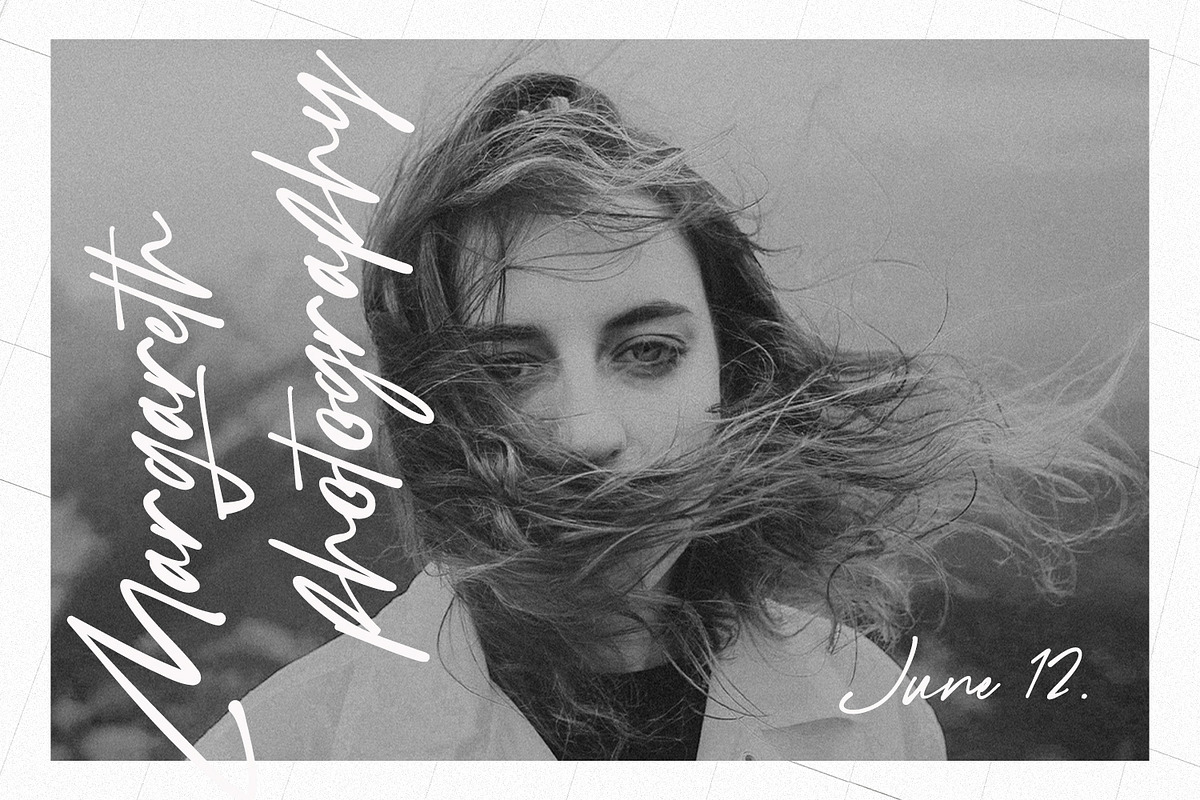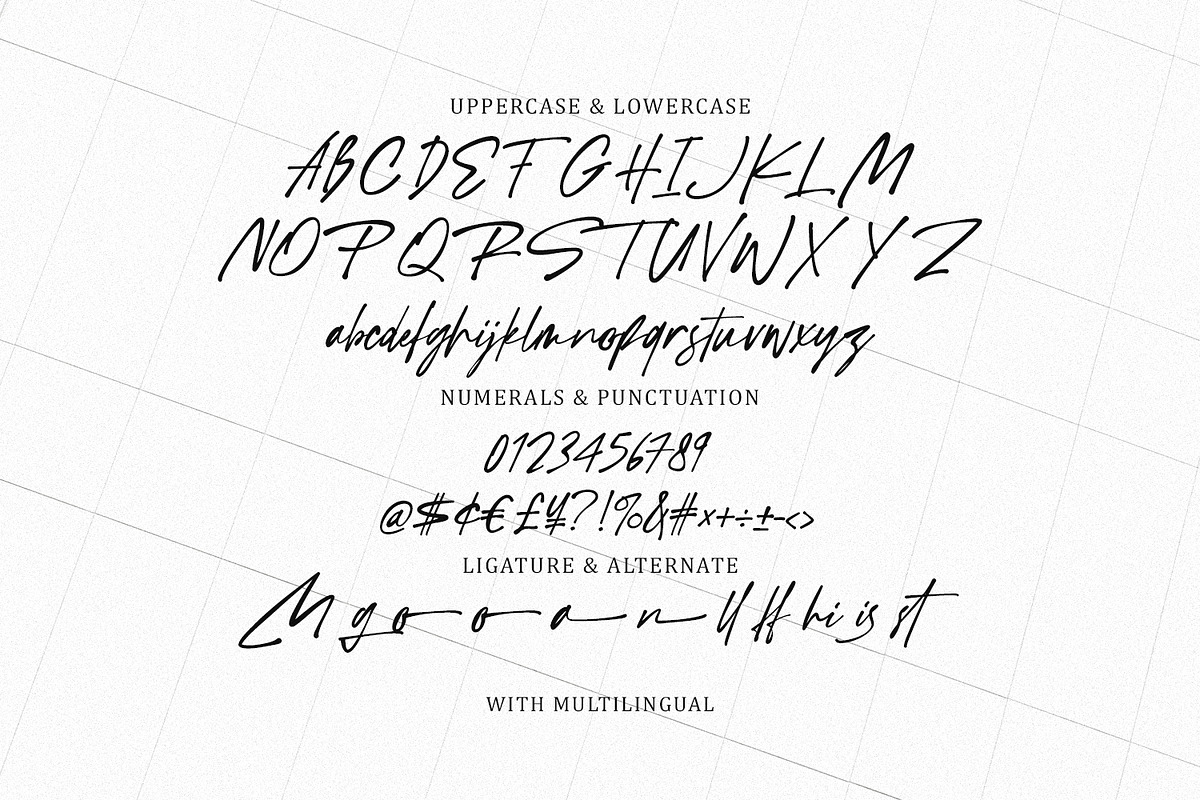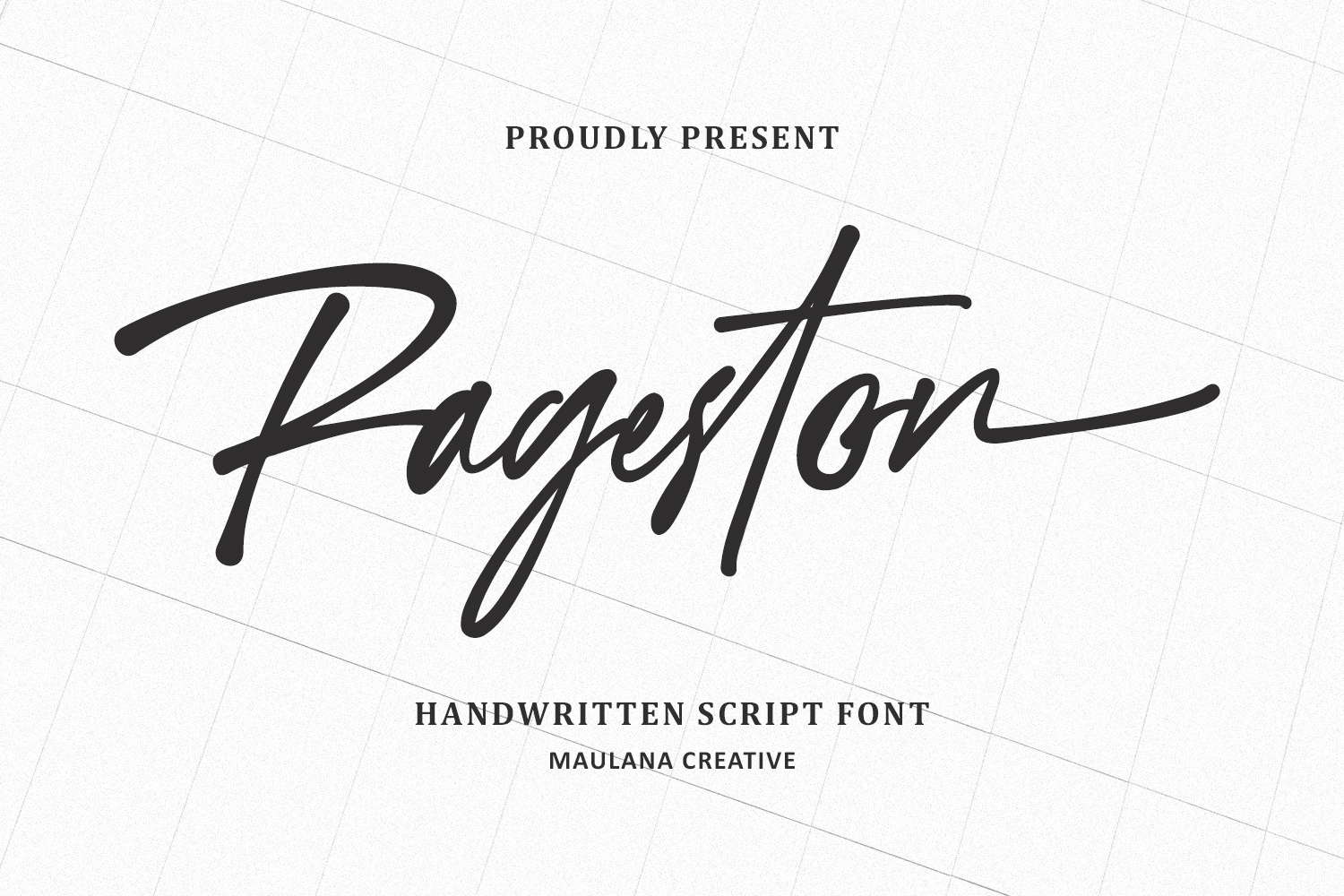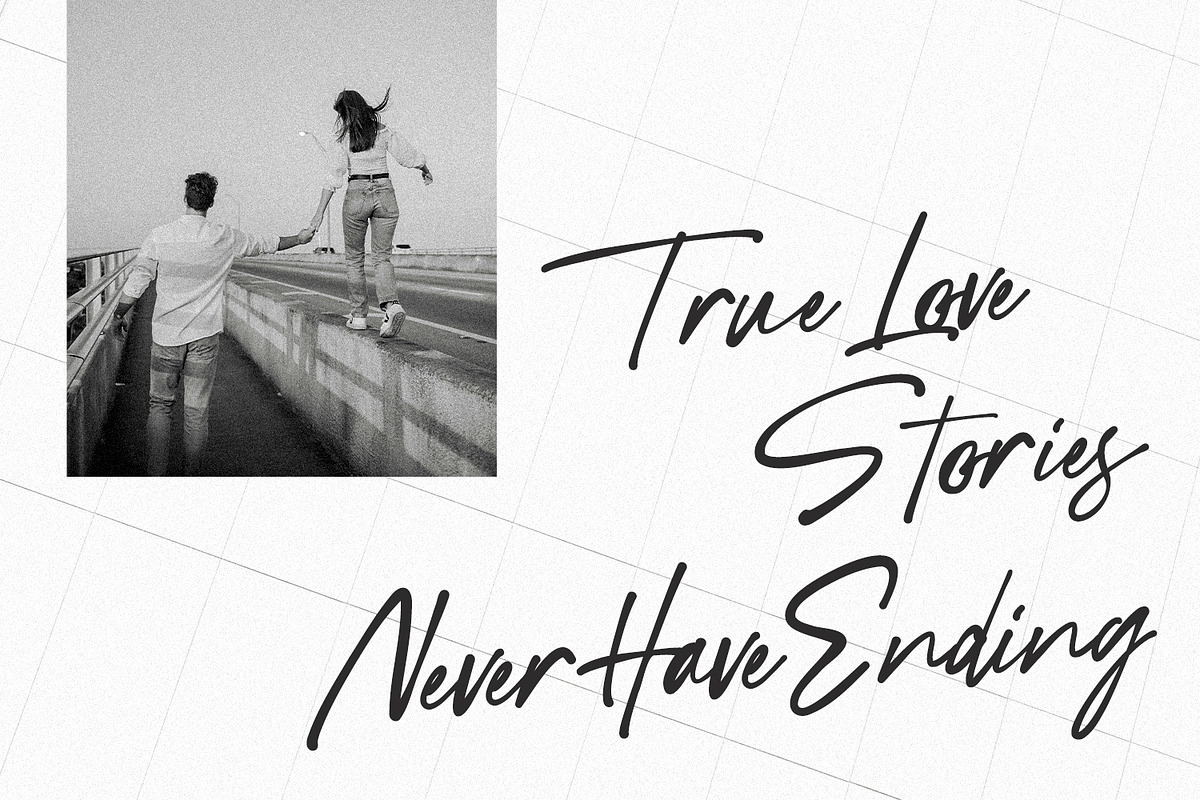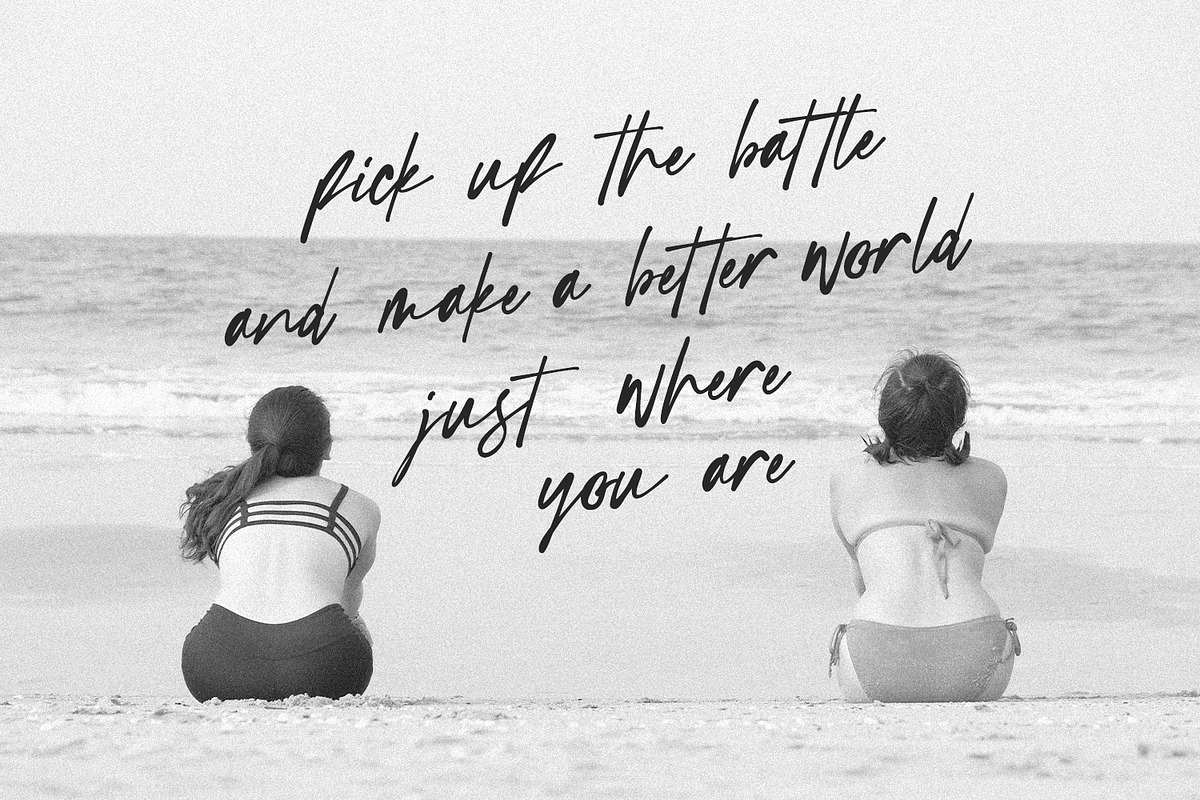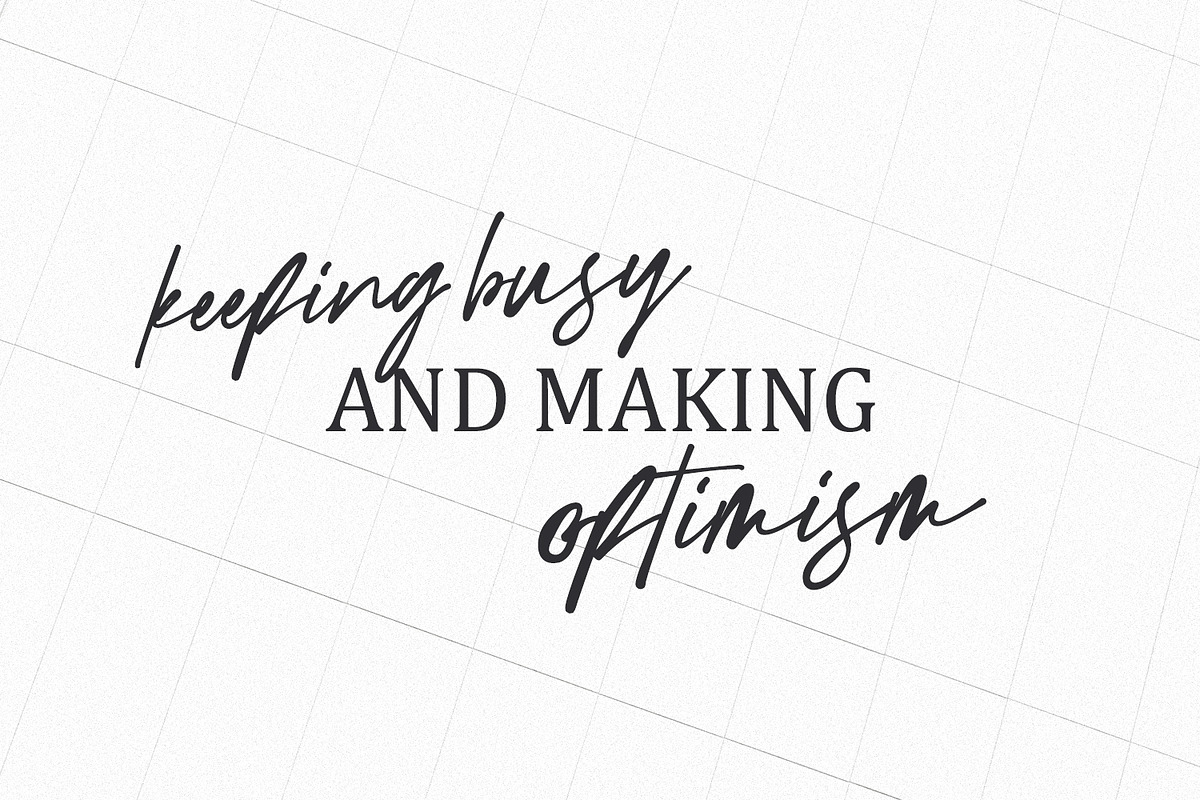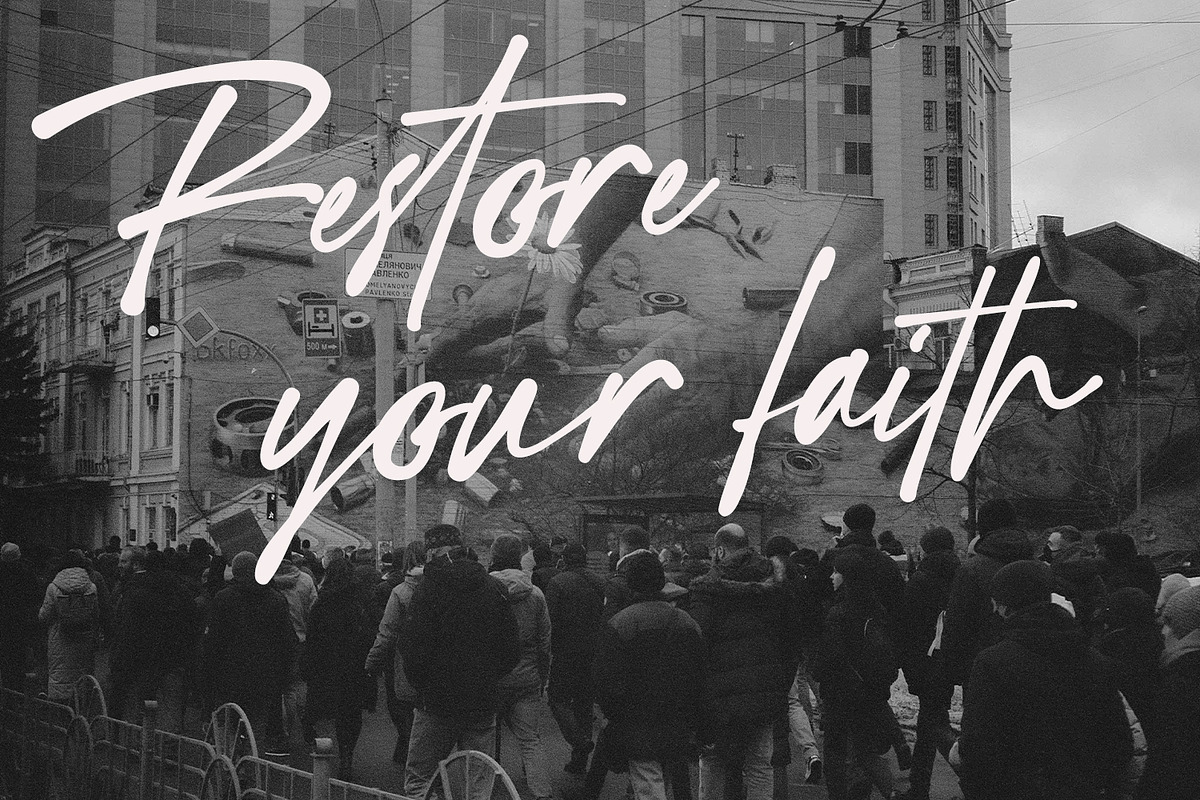
Rageston Authentic Handwritten Font
Introducing Rageston, a bold and expressive handwritten script font that captures the spontaneous beauty of a genuine signature. Crafted with a dynamic flow and a slightly rough edge, Rageston brings an unparalleled level of authenticity and awesome touch to your design projects. This font is perfect for creators looking to evoke a sense of individuality, elegance, and raw artistry. The thick, confident strokes and natural connections make it an excellent choice for logos, branding, product digital, social media graphics, quote overlays on photographs, wedding, and watermarks.
- Ligatures and Alternate Style